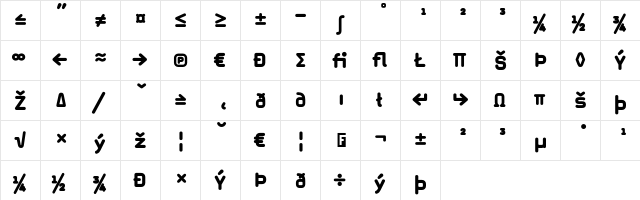
MagdaClean BlackExpert Font Preview
MagdaClean BlackExpert
Design Context for MagdaClean Typeface
MagdaClean takes a measured approach to typography — its balanced proportions and neutral character make it a reliable workhorse for both digital and print work.